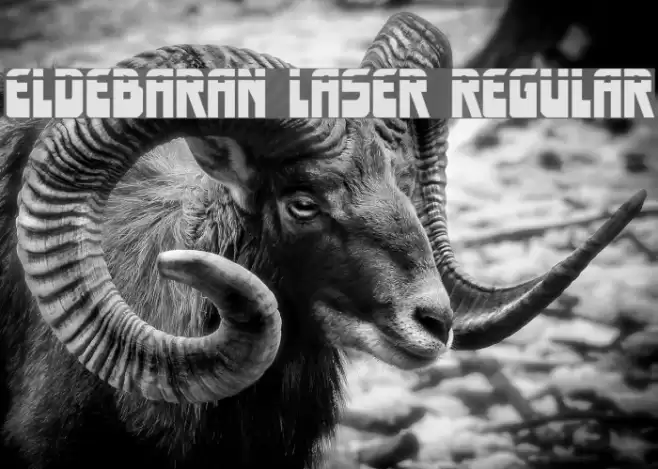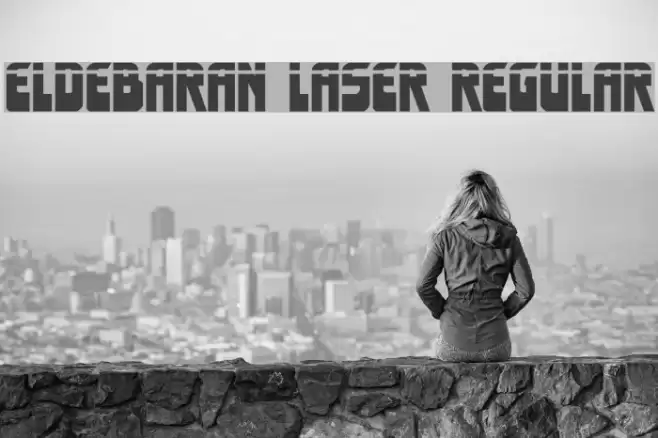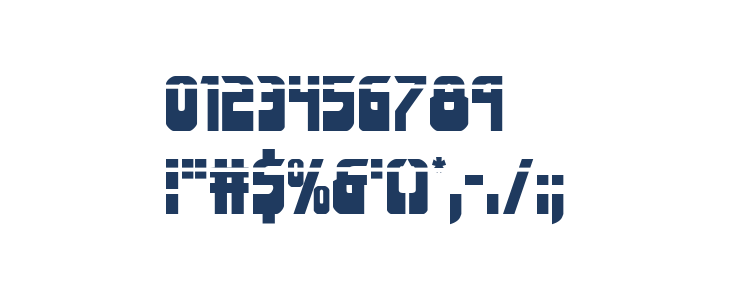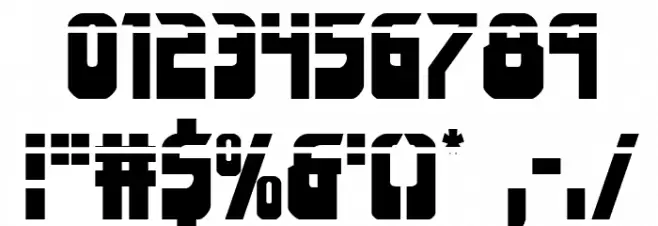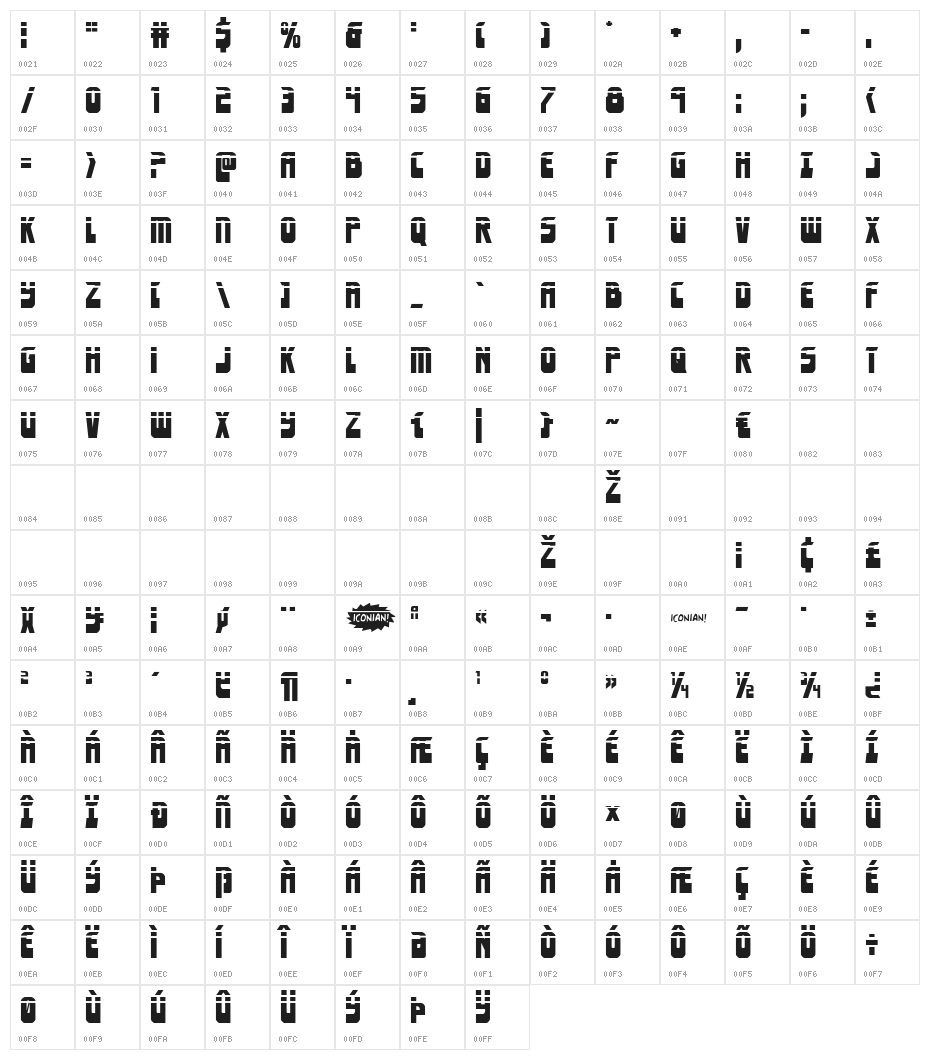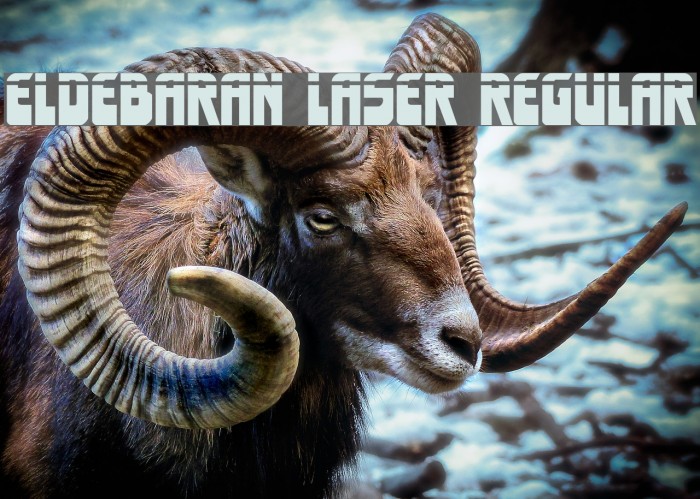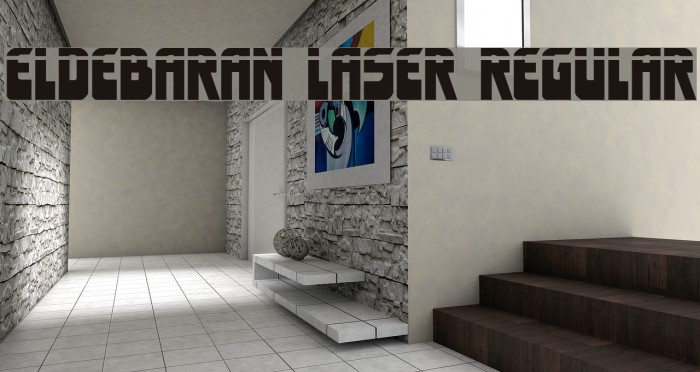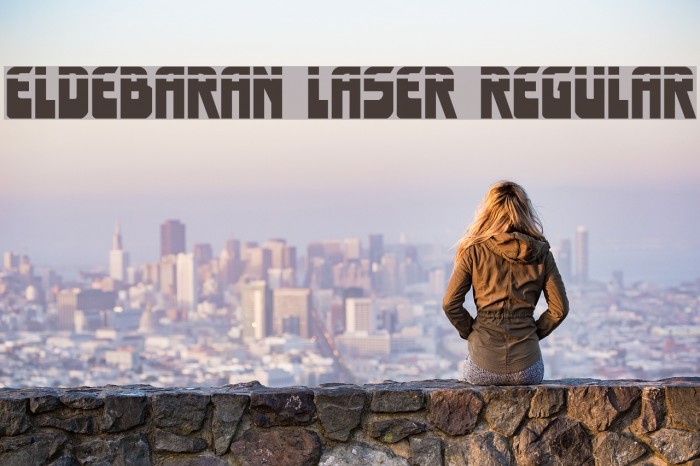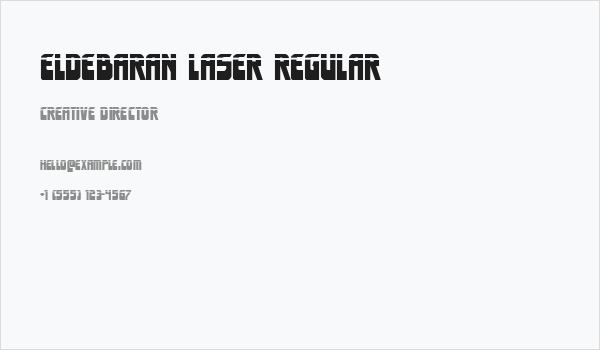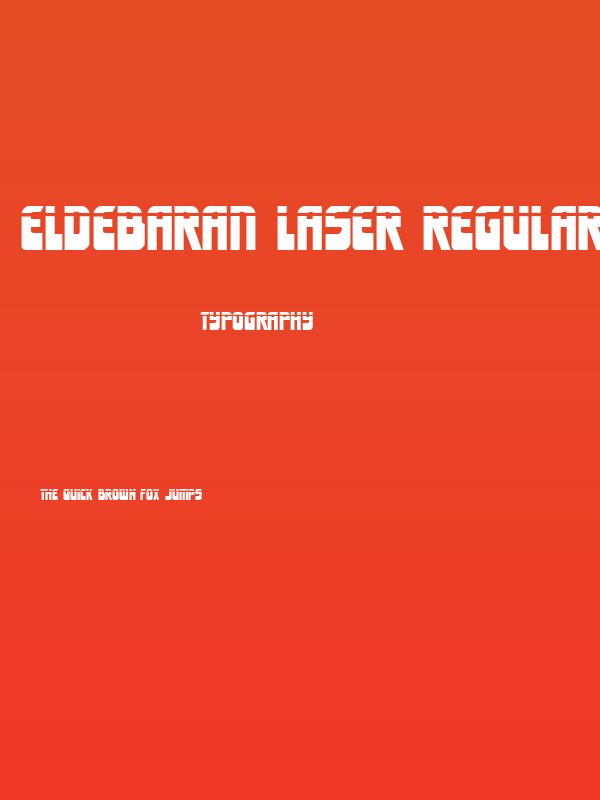
Eldebaran Laser Regular Font
Eldebaran Laser Regular Description
This font exhibits a bold, futuristic style with a strong geometric influence. The characters are constructed with sharp angles and straight lines, creating a sense of precision and modernity. The uppercase and lowercase letters share a uniform height, contributing to a cohesive and structured appearance. The numbers and special characters maintain the same boldness and angular design, ensuring consistency across all glyphs. This font's distinct style is ideal for projects that require a modern and impactful visual presence.
A bold, geometric font with a futuristic and structured design from Uncategorized fonts.
- Proposed Projects: Ideal for sci-fi themed designs, technology branding, video game titles, and modern posters.
- Overall Style: Futuristic